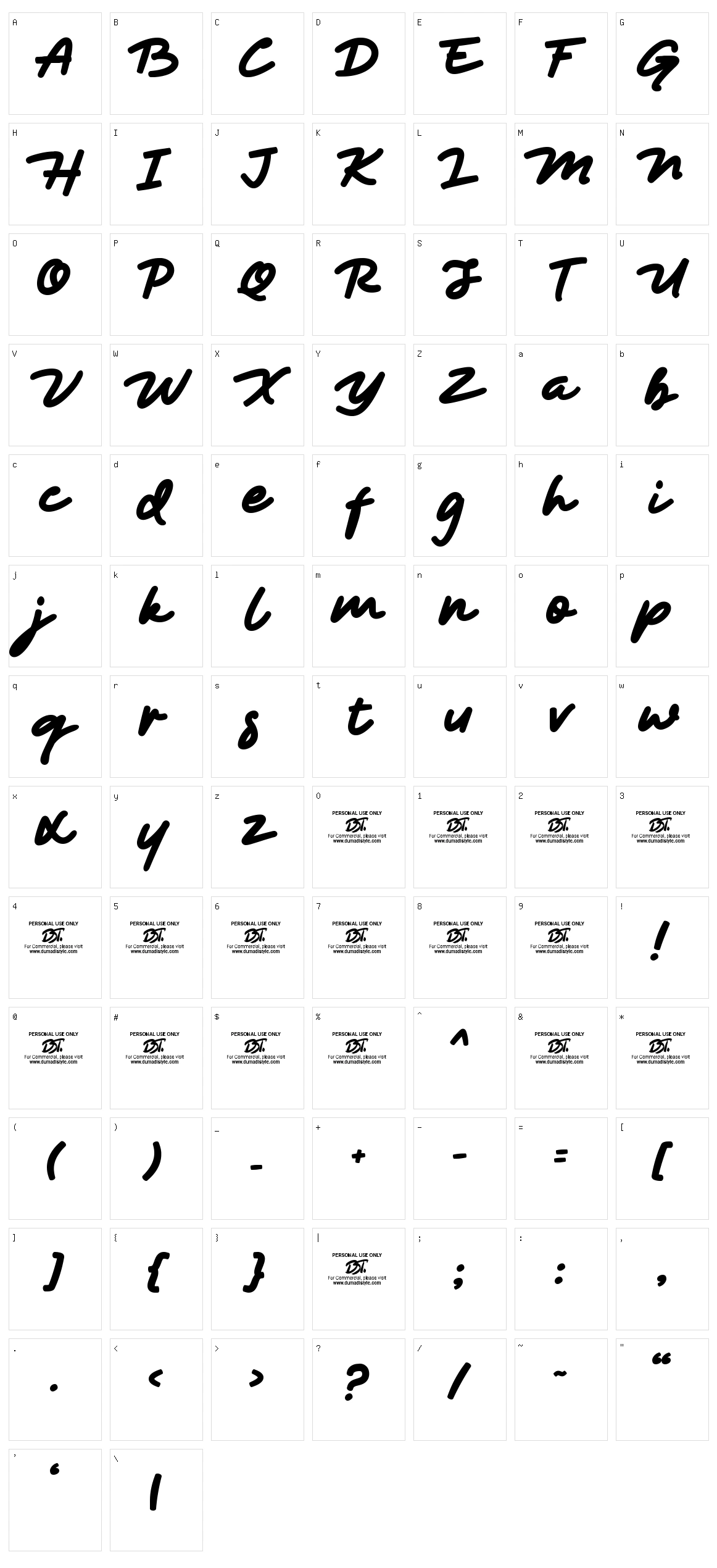
The free font Rellbox is carefully designed by DumadiStyle, showcasing a thoughtful balance of creativity and usability and falls under the Script font style. When you download the ZIP file, it contains only 1118.02 KB of font files, making it lightweight and quick to download. Please review the license details below to understand permitted usage and distribution rights. If license information is not available, we recommend using this font for personal projects only or contacting the author directly for commercial usage permissions.